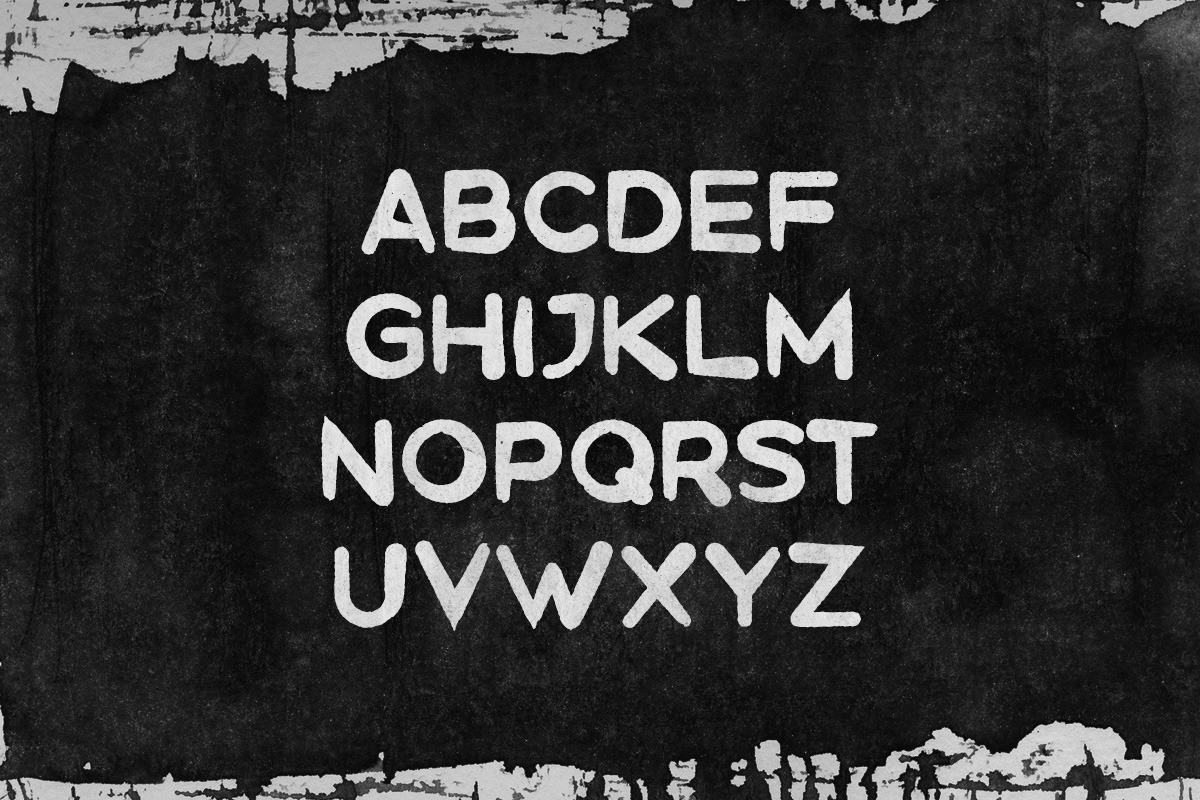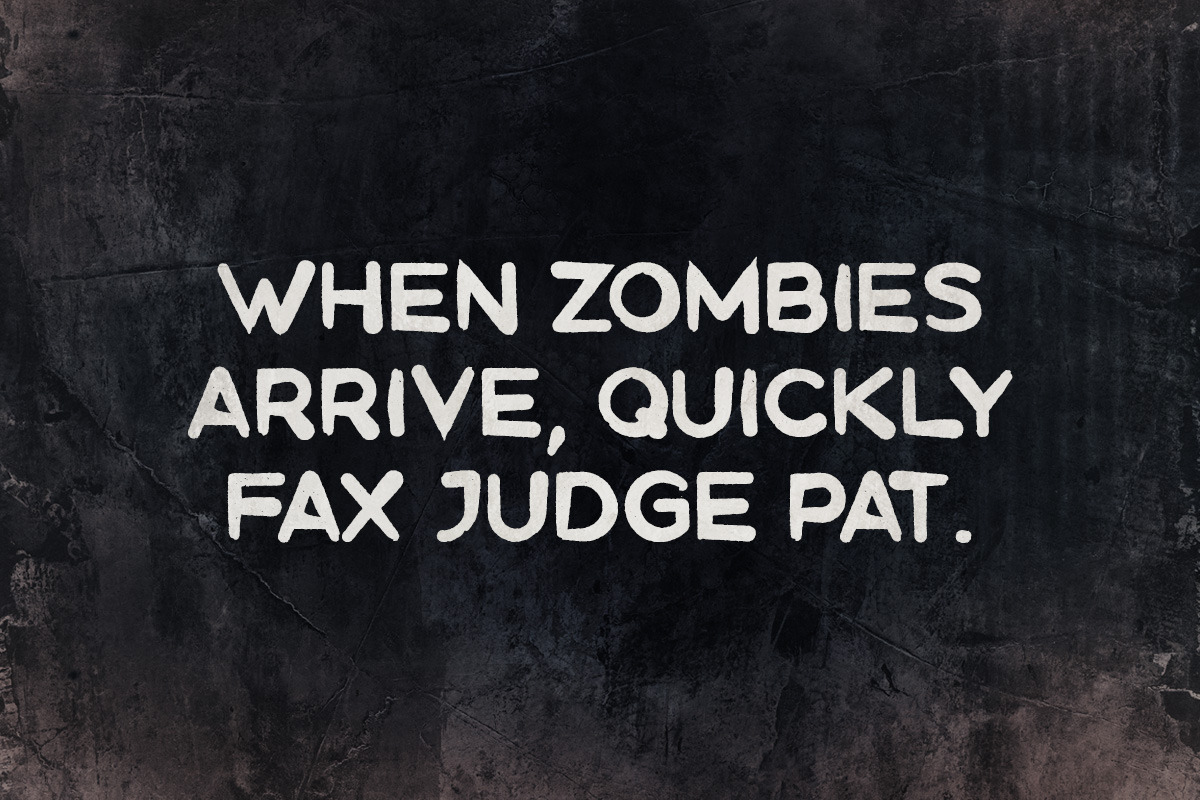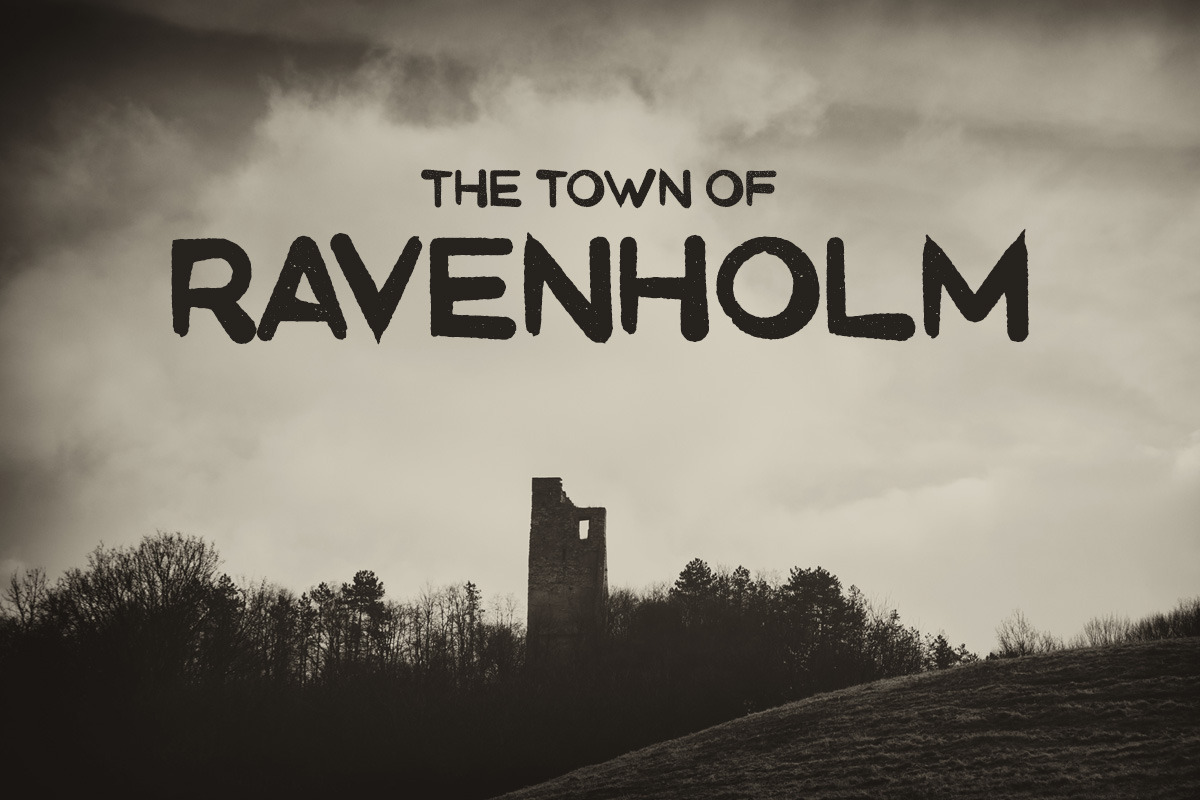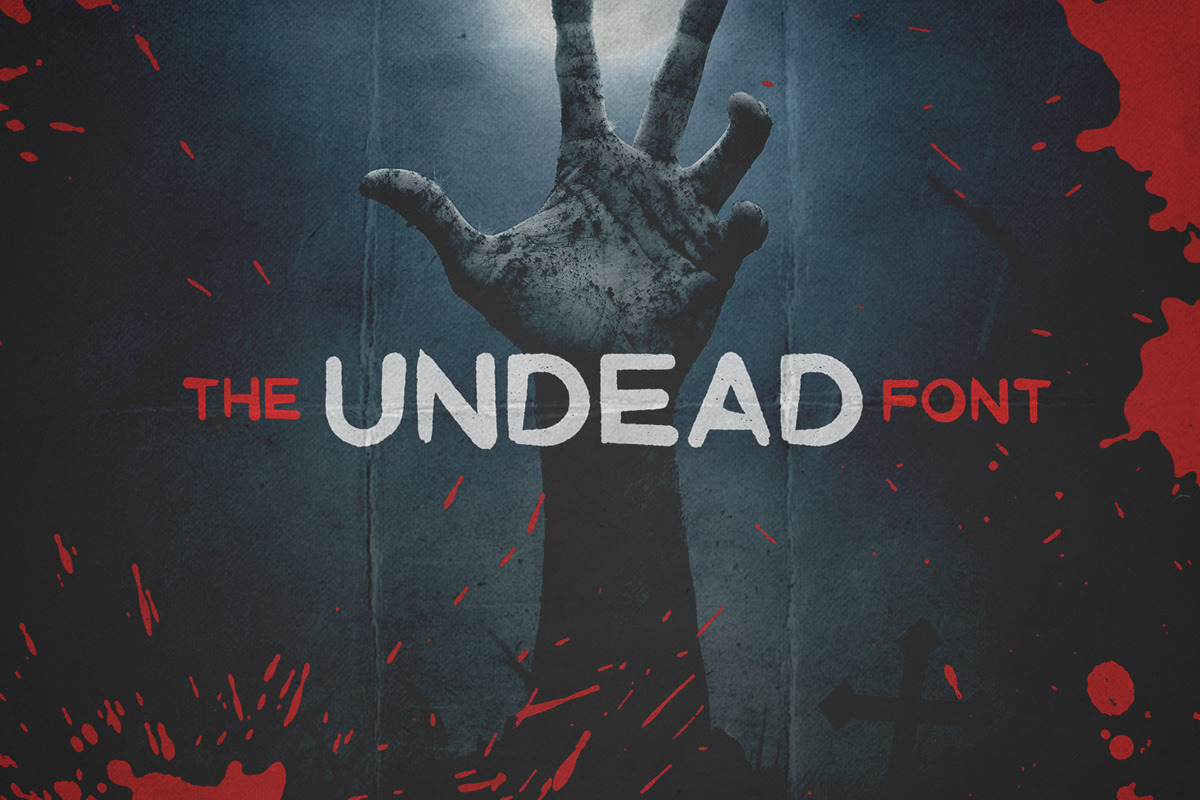
Ghoul - Brush Font
Ghoul - Brush Font by Tugcu Design Co. is a font selected for branding, posters, packaging, typography.
- It includes uppercase multilingual letters, punctuation and numbers.
Why Ghoul - Brush Font is worth a look
Ghoul - Brush Font by Tugcu Design Co. fits naturally into Branding, posters, packaging, typography.